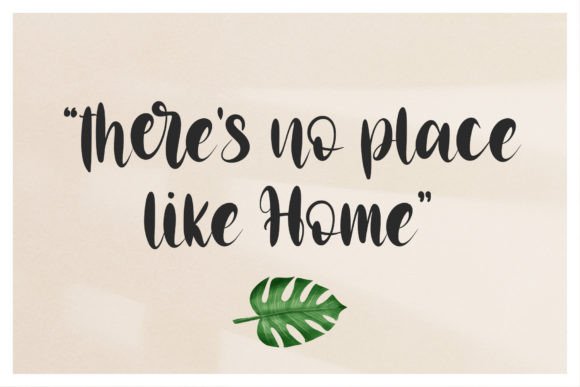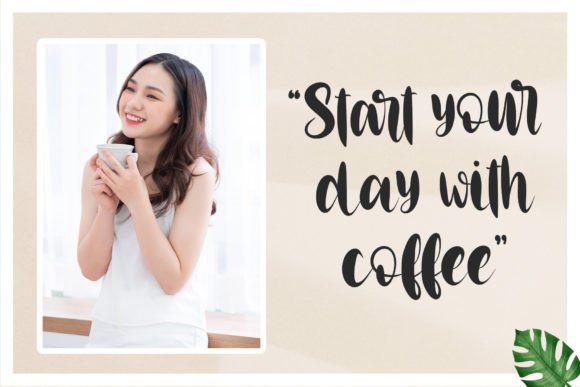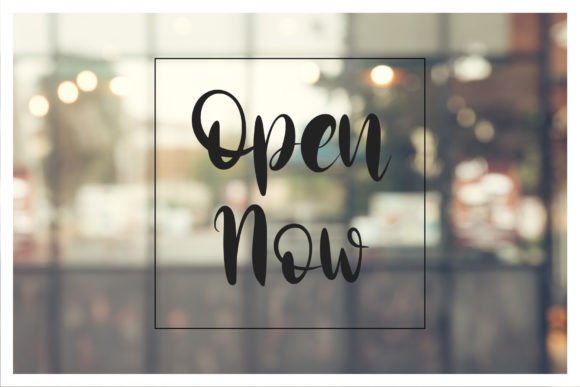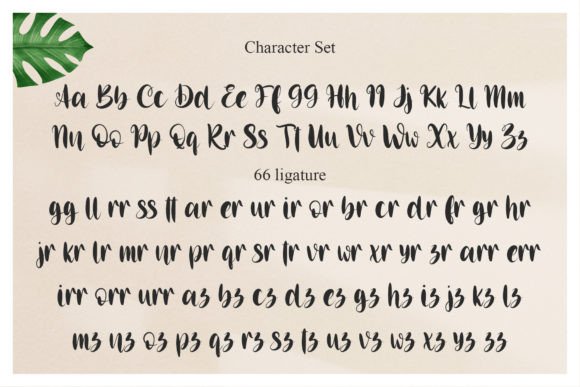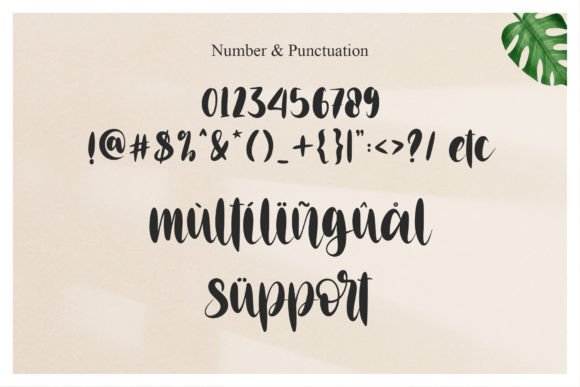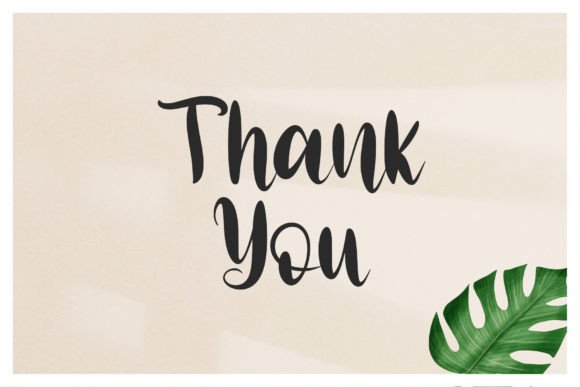
Introduction to Anglina Farmhouse Font
Anglina Farmhouse is a romantic and sweet calligraphy typeface with characters that dance along the baseline.
Key Features of Anglina Farmhouse Font
Why Choose Anglina Farmhouse Font?